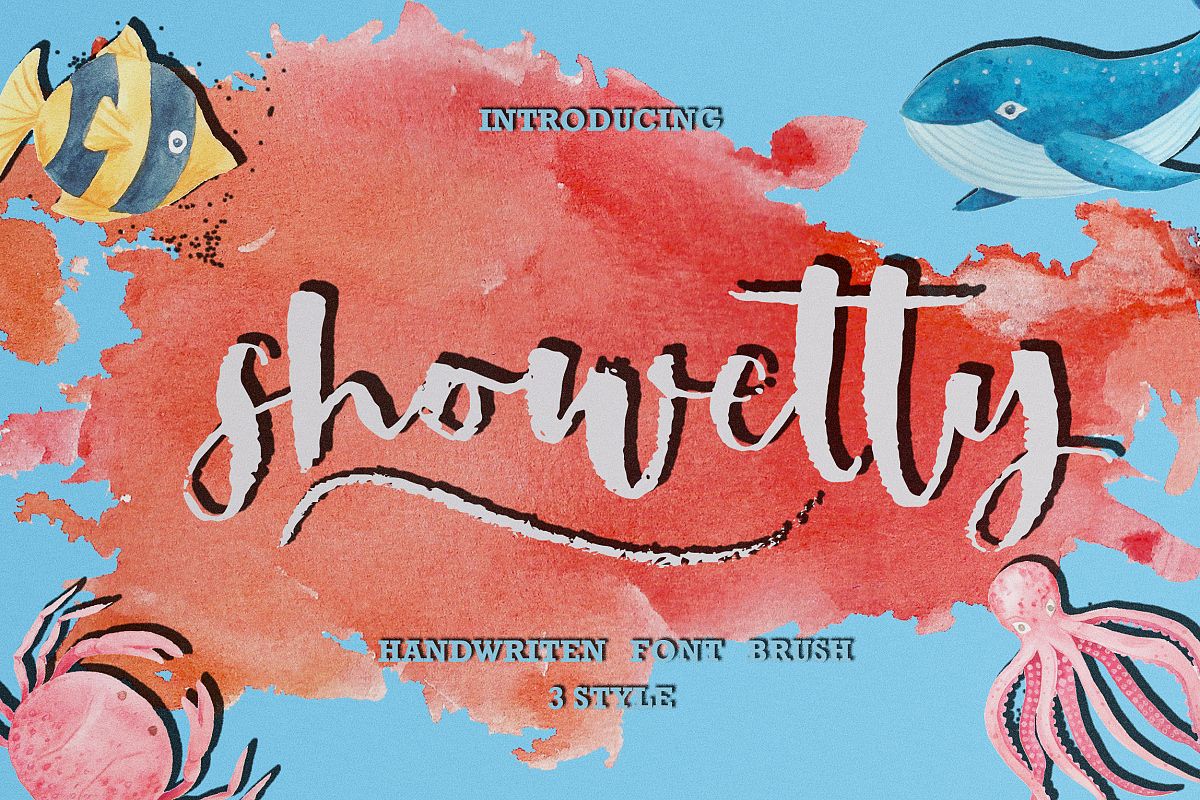
Showetty Brush Script is a set of 2 hand made marker pen fonts, designed to combine perfectly and allow you to create stunning hand-lettering quickly and easily. Also included is a set  bonus swashes, ideal for giving your text that final touch of finesse!
Showetty Brush Script Comes with upper and lowercase characters, large set of punctuation glyphs, numerals, and supports international languages. Stylistic alternates for several key lower case characters are also available, accessible in the Adobe Illustrator Glyphs panel, or under Stylistic Alternates in the Adobe Photoshop OpenType menu.
Showetty Brush Comes with upper-case only characters, basic punctuation, numerals, and supports international languages.
Showetty Brush Swash Includes a hand-made swashes.